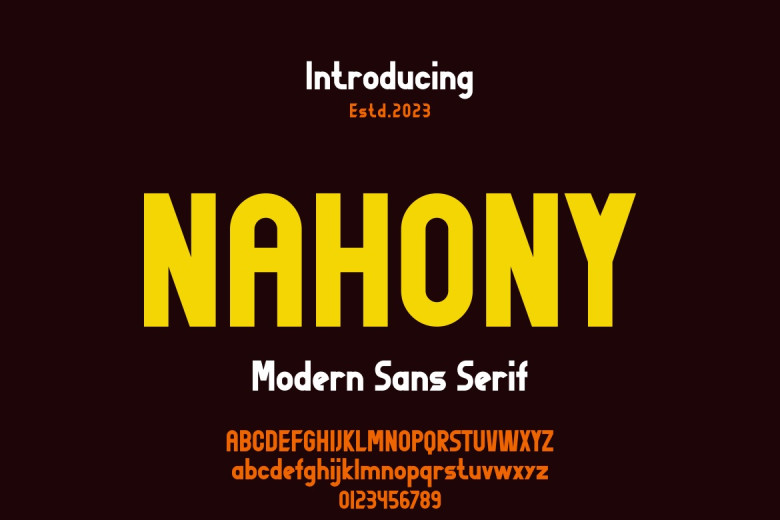
Nahony Font
Nahony showcases sans-serif font in an authentic manner, making it perfect for branding projects such as logos, t-shirt prints and esports – making an impactful statement about who or what matters in many contexts. Outstanding!
Nahony Sans Serif Font